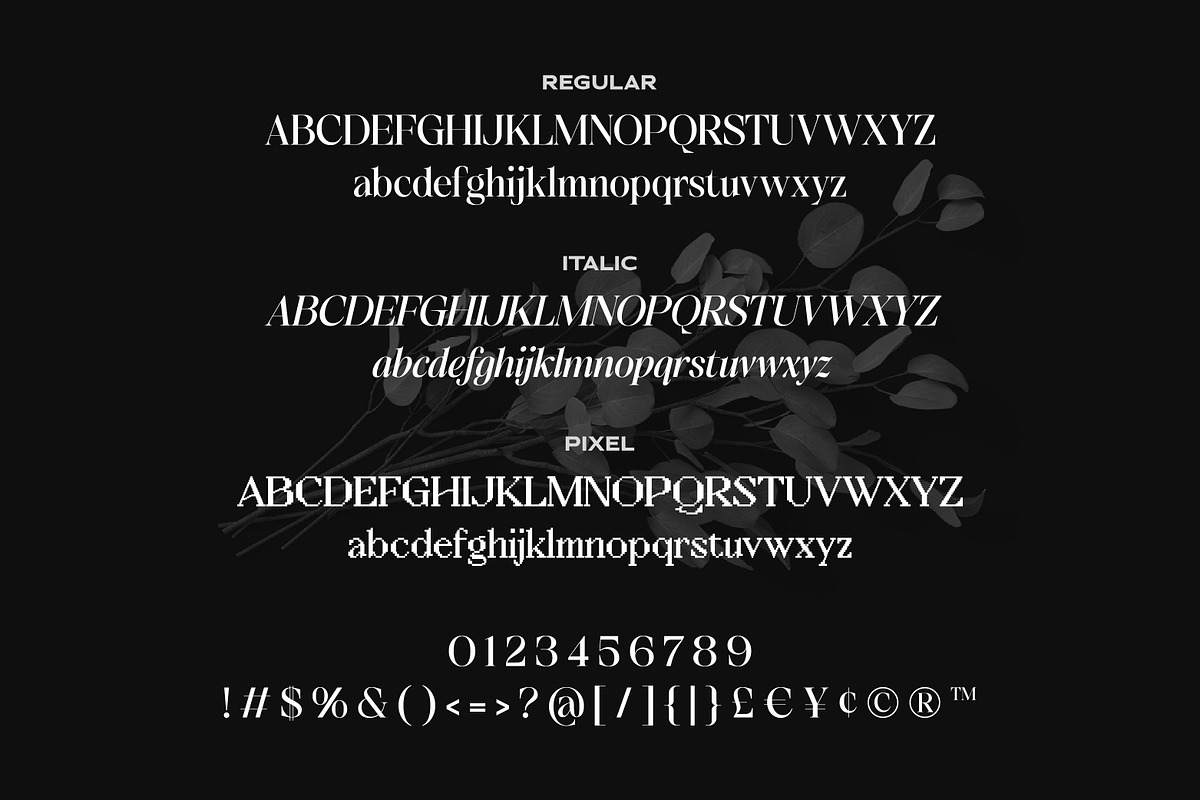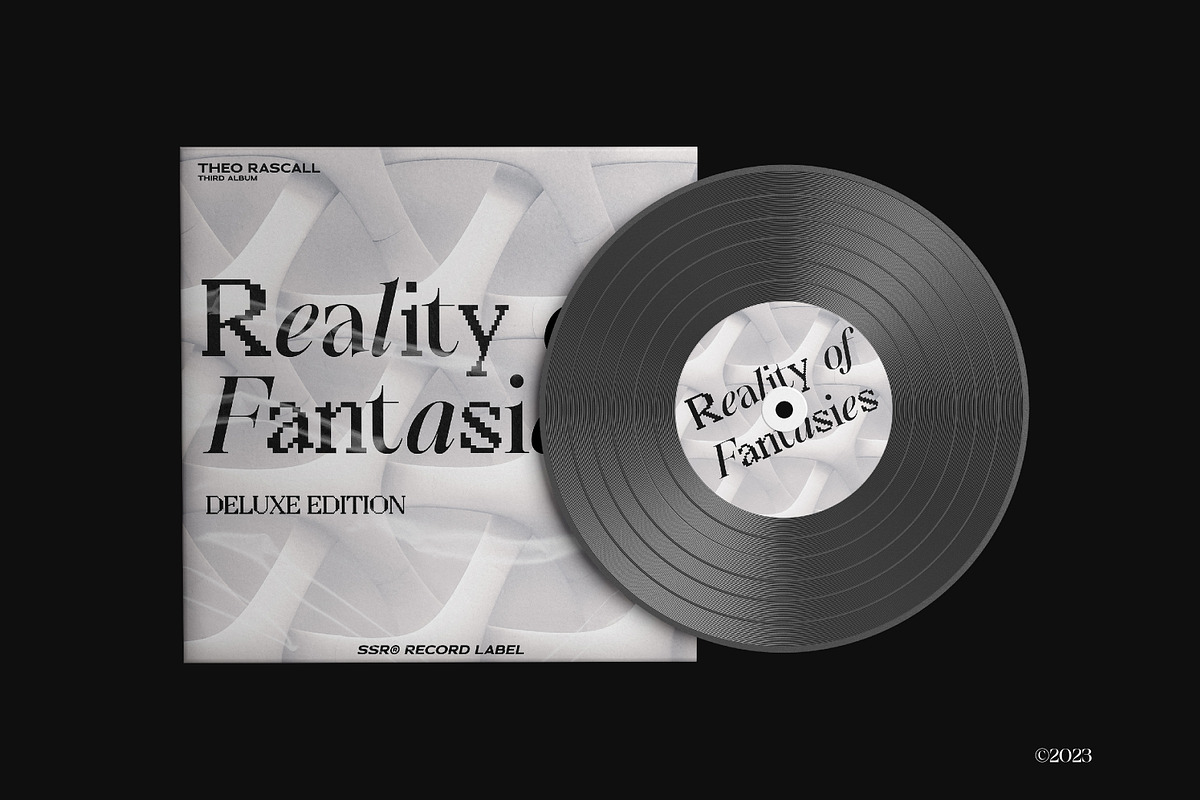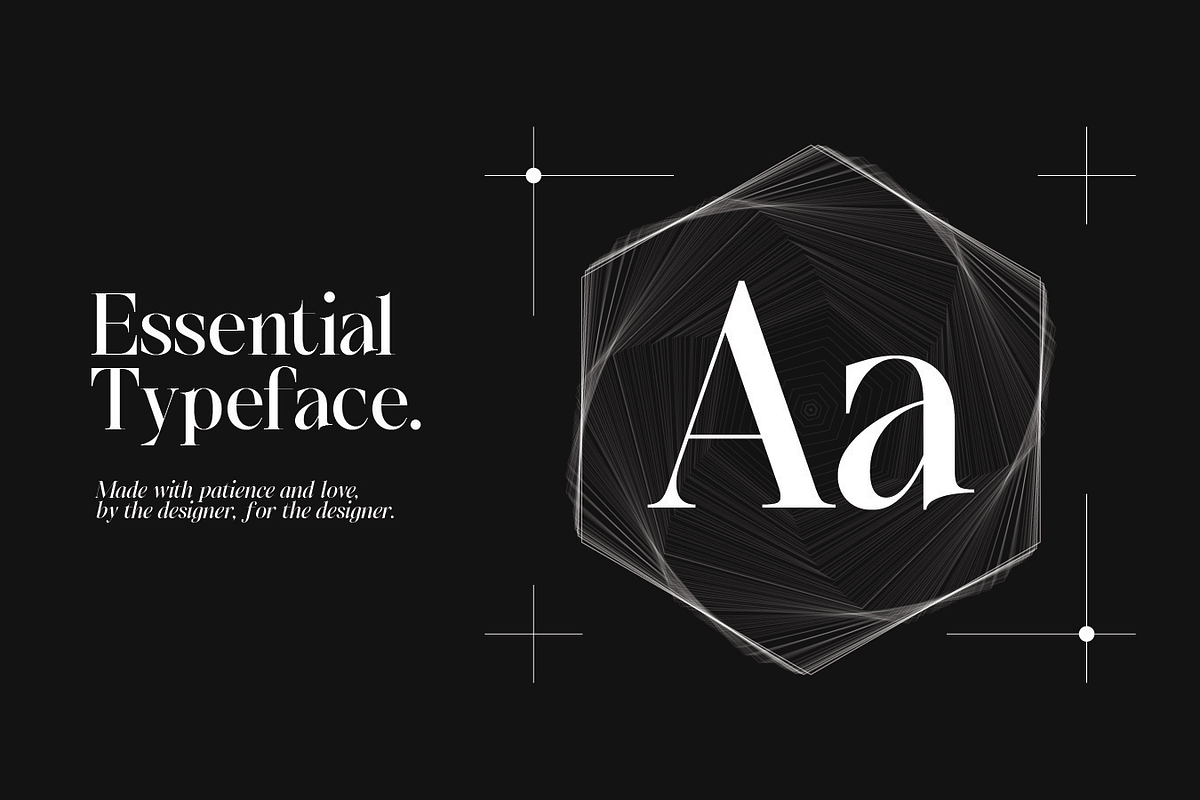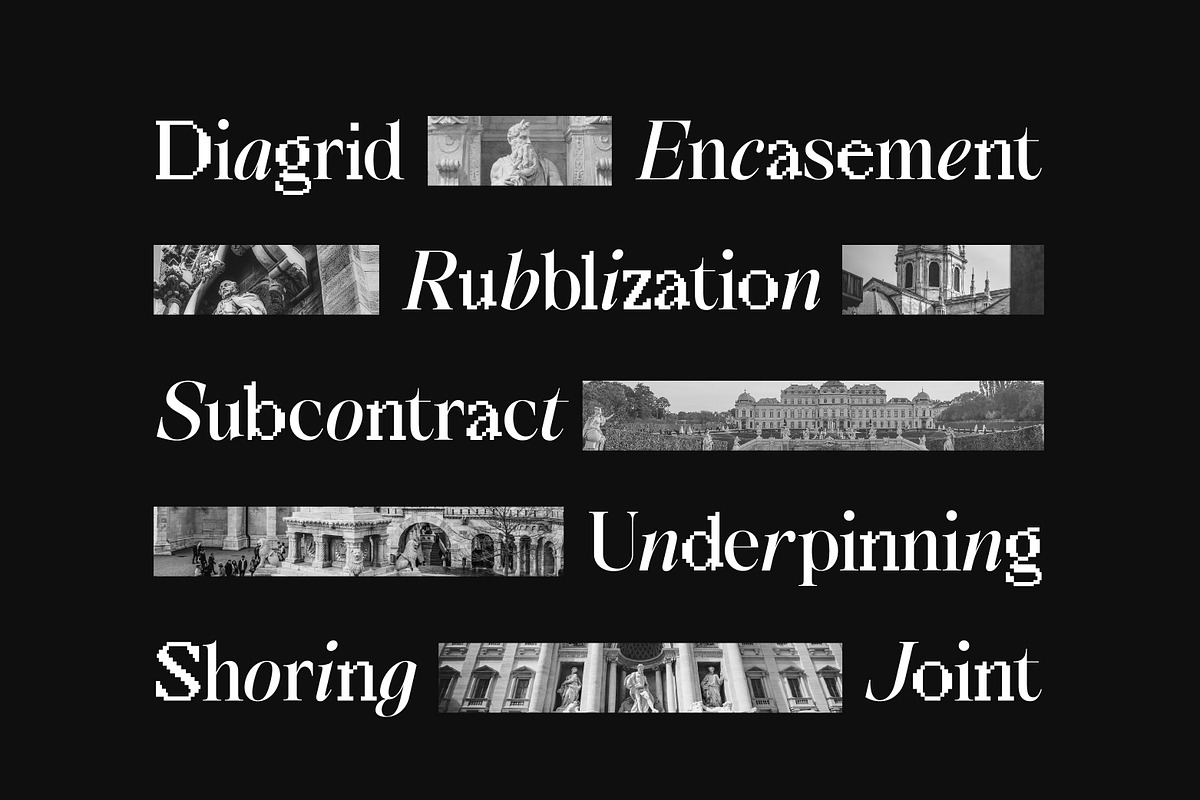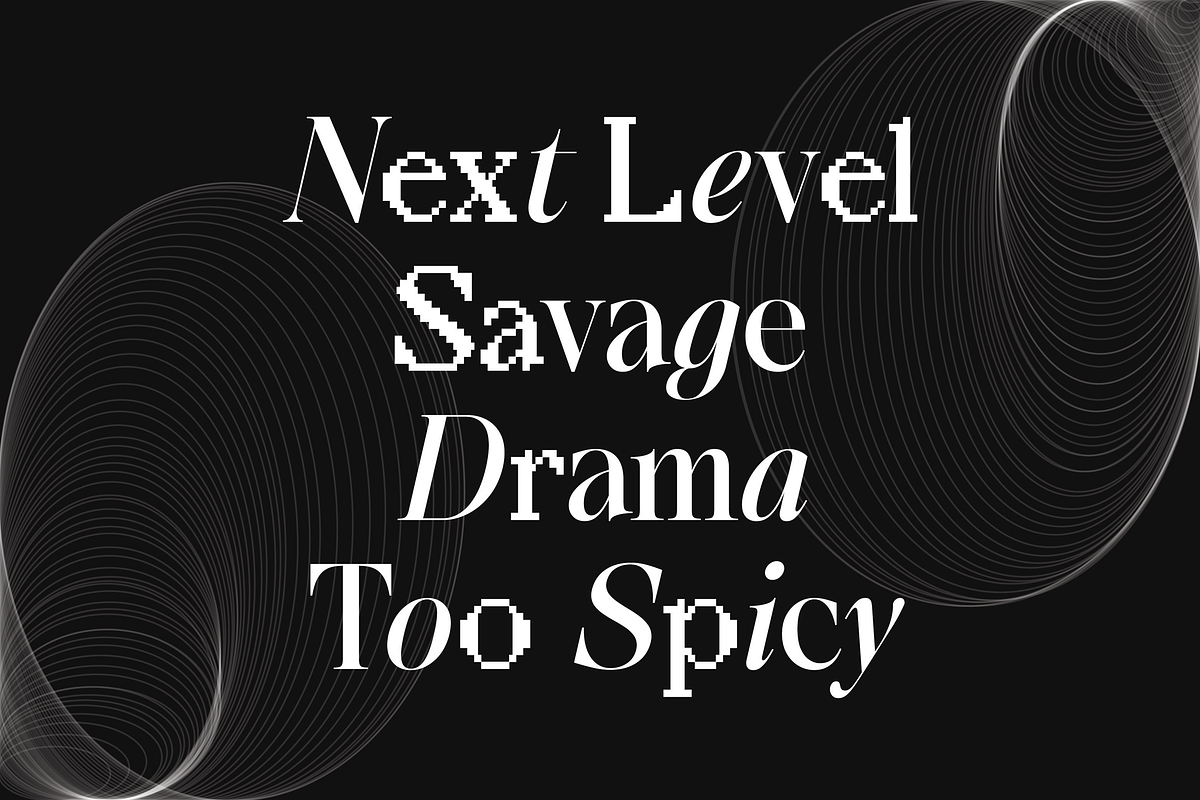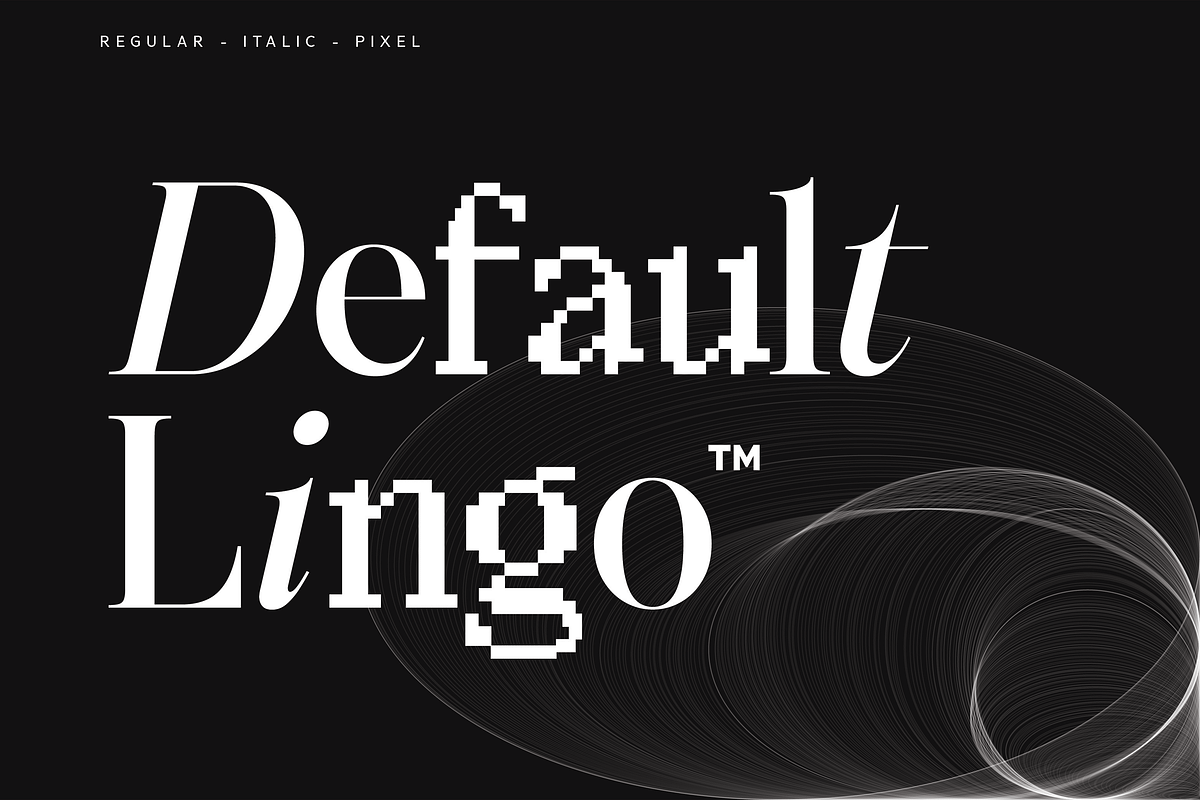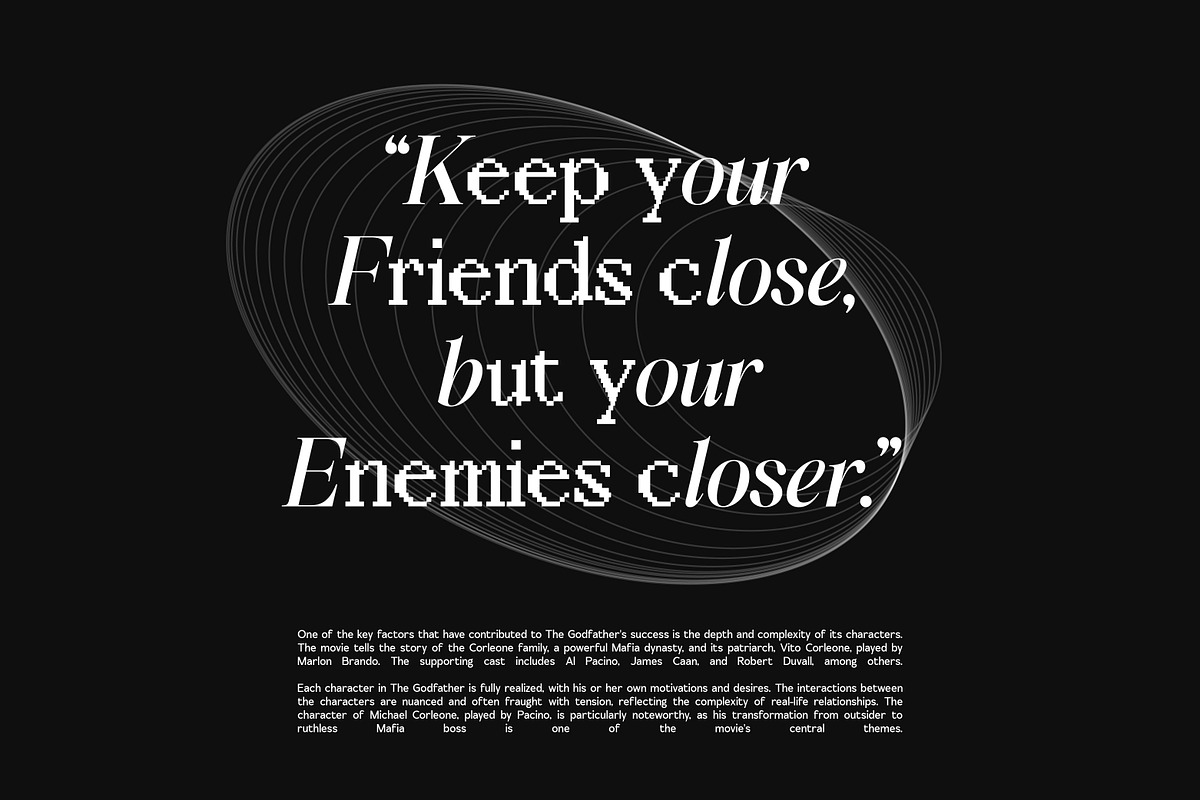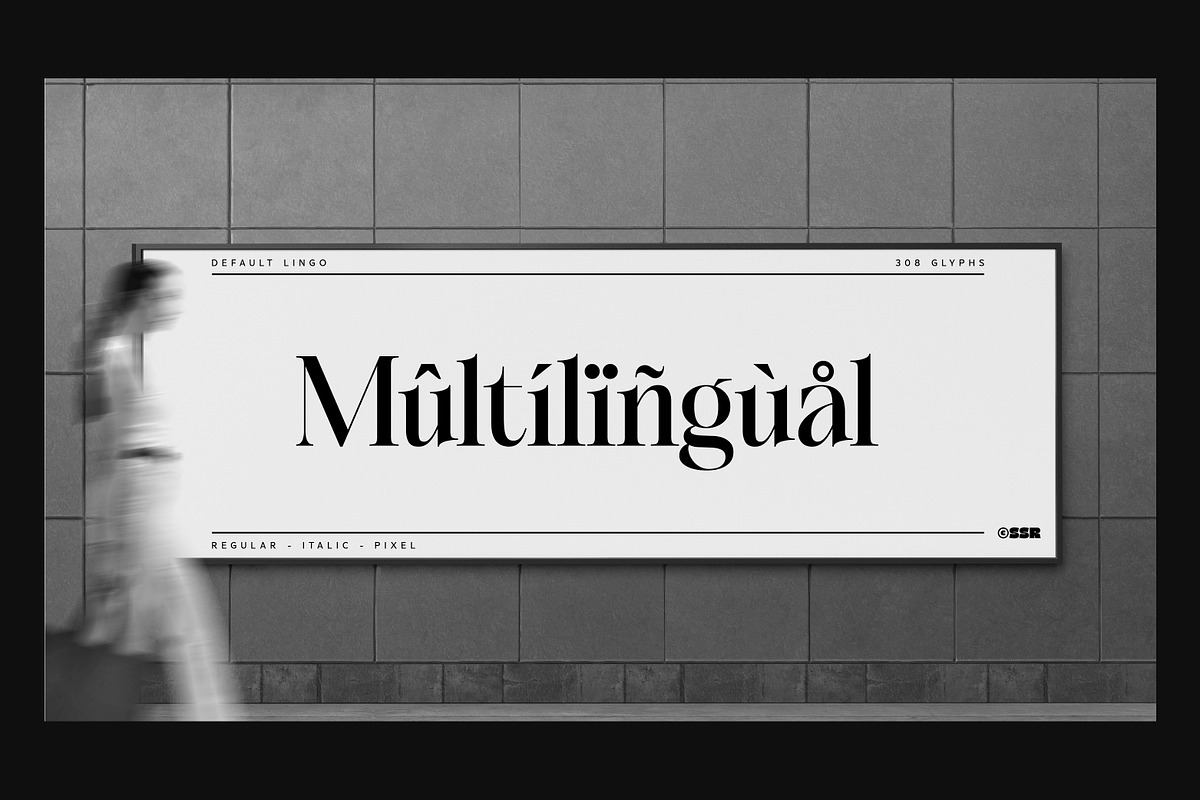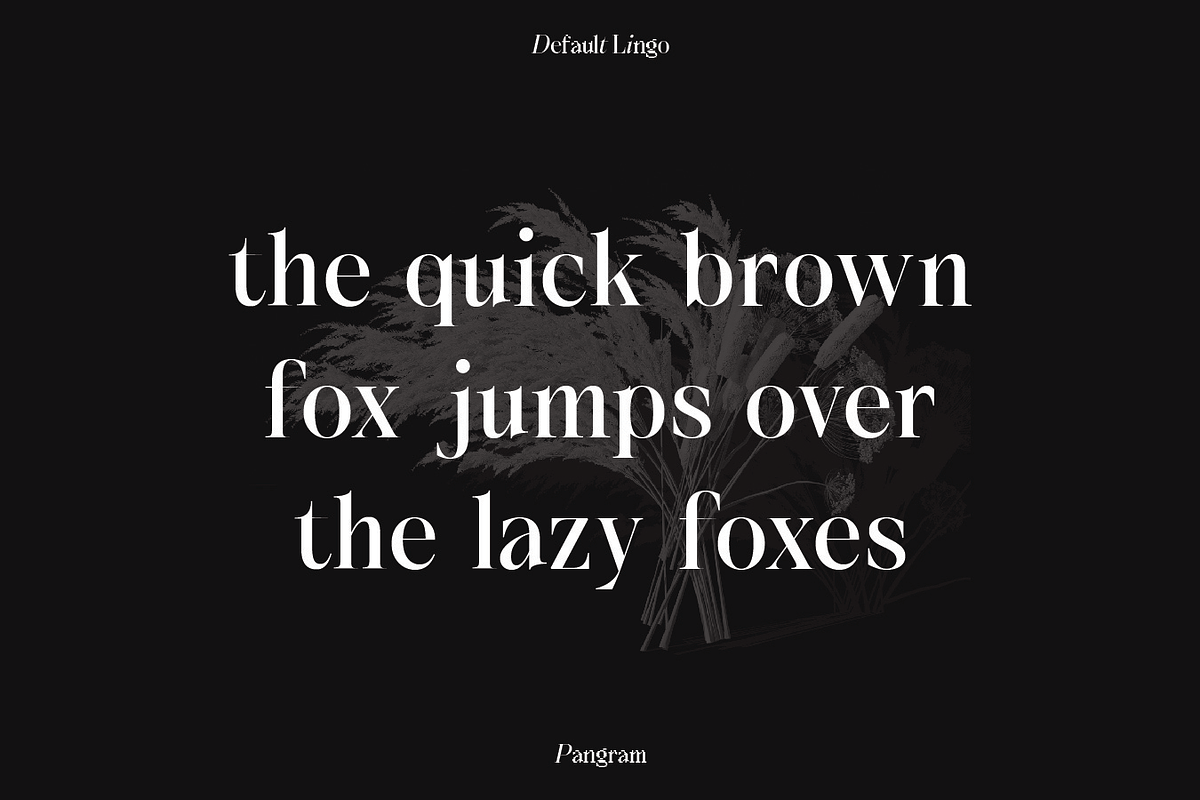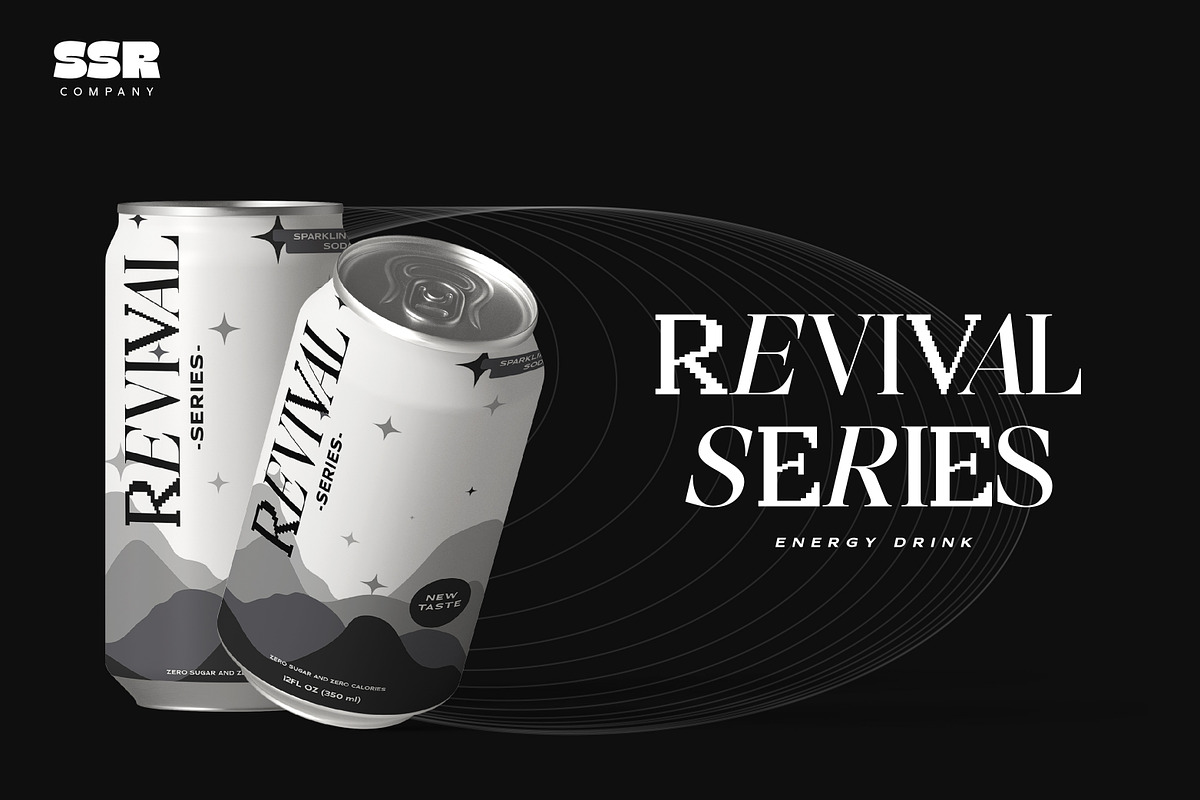
SS Default Lingo - Display Mix Font
Default Lingo is a mix font combined from regular, italic and pixel styles. This font is inspired by the motto of the country this studio originates from, namely Indonesia. Adopting the motto "Bhinneka Tunggal Ika" which means "Different but still one", illustrates the hope of this font to be able to combine in different styles. It is perfect for your up coming projects, such as luxury logo and branding, classy editorial design, fashion promotional, art gallery branding, museum, historical of architectural, boutique branding, stationery design, blog design, modern advertising design, card invitation, art quote, home decor, book/cover title, special events and any more.
- Alternate Pixel
- Alternate Italic